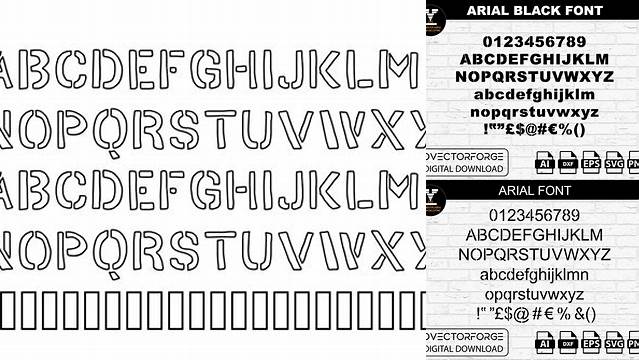
Free Stencil Arial Font Downloads: Your Ultimate Guide
Hey there, design enthusiasts and DIY lovers! Are you on the hunt for that perfect stencil Arial font free download to elevate your projects? Well, you've landed in the right spot! Today, we're diving deep into the world of stencil Arial fonts, exploring why they're so popular, where you can snag them for free, and how to use them like a pro. Whether you're working on a crafty new sign, sprucing up some branding, or just experimenting with typography, a good stencil font can add that industrial, rugged, or even artistic touch you're looking for. Let's get started and uncover all the fantastic possibilities that await you with a stencil Arial font free download!
What is a Stencil Arial Font and Why You Need It?
So, what exactly is a stencil Arial font anyway, and why might you need one for your next creative endeavor? Essentially, a stencil font is a typeface where the letters are designed with breaks or gaps, mimicking the look of letters cut out from a stencil. This unique characteristic is what gives them their distinctive, often utilitarian or military-inspired appearance. When we talk about an Arial stencil font, we're specifically looking at a variation of the universally recognized Arial typeface, but modified to include those characteristic stencil breaks. Arial itself is known for its clean, legible, and modern aesthetic, making it a fantastic base for a stencil version. The simplicity and widespread familiarity of Arial, combined with the edgy, broken look of a stencil, create a versatile font that can be both professional and rugged at the same time. You might need a stencil Arial font free download if you're aiming for a clean yet slightly industrial feel, perhaps for a shipping label design, an urban-themed poster, or a DIY home decor project where you're physically cutting out letters. It’s perfect for projects that demand clarity but also a hint of something a little less ordinary, a bit more structured and intentional in its fragmented form. The breaks in the letters aren't just for show; they serve a practical purpose in physical stenciling, preventing the inner parts of letters like 'O' or 'A' from falling out. In digital design, this aesthetic is purely stylistic, but it carries that strong visual heritage, making it an excellent choice for designs that want to evoke a sense of authenticity, manufacturing, or a no-nonsense attitude. The sheer versatility means you can use it in a wide array of contexts, from digital graphics to physical crafts, adding significant value to your creative toolkit.
The Allure of Free Stencil Arial Font Downloads
There's a special kind of magic that comes with finding a stencil Arial font free download. For many of us, budget constraints are a real thing, and being able to access high-quality design assets without shelling out cash is a huge win. The allure isn't just about saving money, though; it's also about the freedom and accessibility it offers to hobbyists, students, small businesses, and even seasoned designers who are just experimenting with new styles. A free stencil Arial font download can open up a world of creative possibilities without any financial commitment. Imagine being able to test out different looks for a new logo, create custom t-shirt designs, or craft unique invitations without worrying about licensing fees or hidden costs upfront. This accessibility fosters creativity and encourages people to explore design without barriers. Many talented font designers offer their creations for free (often for personal use, but sometimes even for commercial use with proper attribution), contributing to a vibrant and generous design community. These free resources allow you to build up a diverse font library, giving you more options for every project that comes your way. Plus, the satisfaction of discovering a fantastic free resource that perfectly fits your project's needs is, well, pretty great! So, when you're searching for that perfect stencil Arial font free download, remember you're not just getting a font; you're gaining a new tool to express your creativity freely and economically, making your design journey smoother and more enjoyable. It democratizes design, putting powerful tools into the hands of anyone with an idea and a computer, making it truly captivating.
Where to Find Authentic Stencil Arial Fonts for Free
Understanding Stencil Fonts: Beyond Arial
While we're specifically talking about a stencil Arial font free download today, it's really cool to broaden our understanding of stencil fonts in general. They’re a whole family of typefaces, each with its own unique flavor and application, extending far beyond just Arial. Stencil fonts are characterized by those essential breaks or